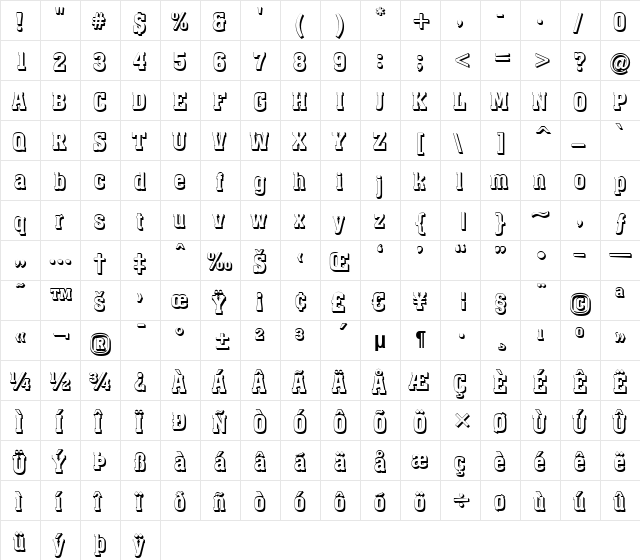
a_Kena3Dxtr Medium
| Designer | W.Chufarofsky & M.Slutsker |
Design Context for a_Kena3Dxtr Typeface
a_Kena3Dxtr is a composed and adaptable typeface that performs quietly and consistently across a wide range of design contexts.